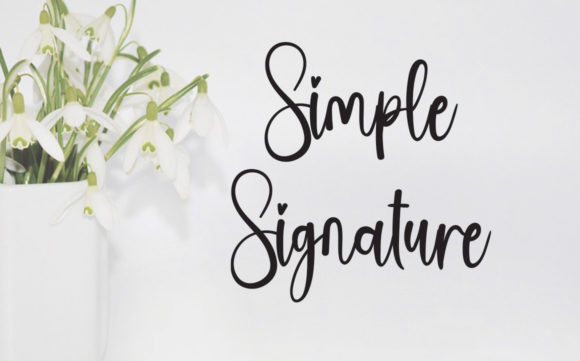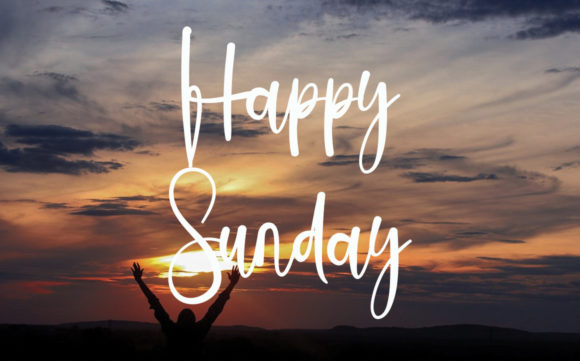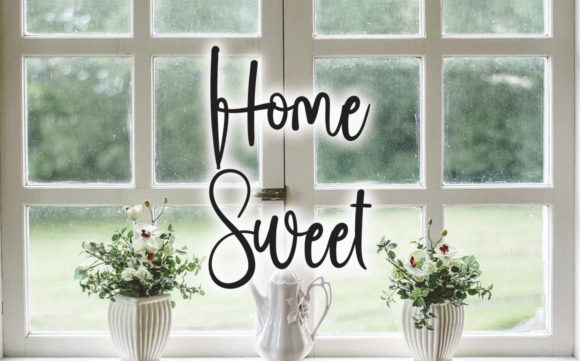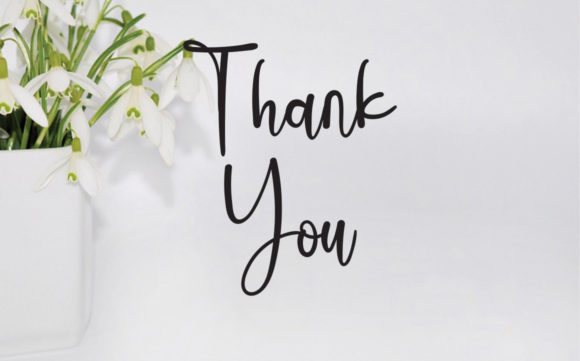
Creative Writing Font
About Creative Writing Font
“Creative Writing” is a captivating and flowing handwritten font that adds a touch of artistic flair to a wide range of design projects. Its distinctive letterforms and expressive strokes make it a versatile choice for various applications.
When applied to wall displays, “Creative Writing” can create visually appealing and artistic compositions. Its flowing and dynamic style can add a sense of movement and creativity to the displays, making them stand out and captivate viewers.
For wedding invitations, the unique charm of “Creative Writing” can infuse a sense of personality and creativity into the design. Whether used for headers, titles, or other elements, this font can add a touch of whimsy to the invitations and set a memorable tone.
In branding and social media, “Creative Writing” can be used to design logos, social media post logos, and advertisements that showcase a brand’s creativity and artistic side. Its handwritten appearance can convey a sense of authenticity and individuality.
When incorporated into product packaging and design, “Creative Writing” can lend a handcrafted and personalized feel to labels, packaging, and product designs. Its flowing strokes and unique lettering can contribute to an overall creative and imaginative aesthetic.
For photography and watermarking, “Creative Writing” can create elegant and artistic watermarks that enhance the visual appeal of images. Its expressive lines and intricate details can add a signature touch to your photographs.
Whether used for invitations, stationery, labels, or other projects requiring impressive typography, “Creative Writing” offers a one-of-a-kind look that captures attention and leaves a lasting impression. Its flowing and artistic nature makes it an ideal choice for designers aiming to create visually captivating and creatively inspired designs.